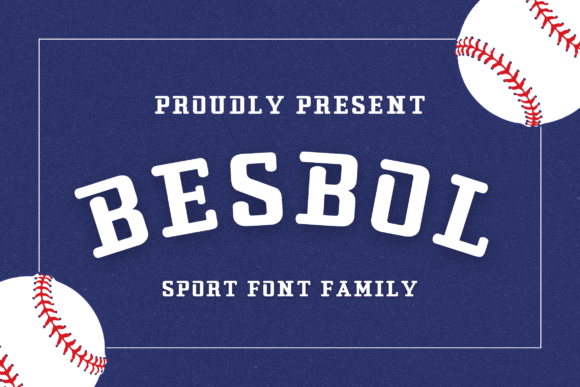
The Besbol Font: A Modern Classic for Your Design Projects
I’ll never forget the time I was working on a branding project for a trendy coffee shop. I had spent hours perfecting the logo design, but something was off. The font I had chosen just wasn’t giving me the vibe I wanted. It was then that I stumbled upon the Besbol font. With its modern and classic letter design, it instantly elevated my design and gave it a fresh, approachable feel. In this article, I’ll share my experience with the Besbol font, its characteristics, and how to make the most of it in your design projects.
What Makes Besbol Font Special?
The Besbol font is characterized by a slab serif font with a modern and classic letter design. The slab serif font style adds a simple yet attractive feel that is approachable, making it a friendly and attractive choice for any project. Whether you’re a designer, crafter, or creative hobbyist, Besbol font is sure to impress.
What I Love About Besbol Font
- ✨ Modern and classic design: Besbol font strikes the perfect balance between modernity and classic appeal.
- ✅ Approachable feel: The slab serif font style gives Besbol a friendly and attractive personality.
- 💡 Versatile: Besbol font can be used for a wide range of design projects, from branding and advertising to crafting and DIY projects.
While Besbol font is an excellent choice for many design projects, there are a few things to keep in mind:
- ⚠️ Limited availability of stylistic alternates: Besbol font has a limited number of stylistic alternates, which may not offer as much flexibility as some designers might like.
- 🤔 May not be suitable for very small text sizes: Like many slab serif fonts, Besbol may not be the best choice for very small text sizes, as the serifs can become blurry or lost.
The Designer Inspiration Behind Besbol Font
The Besbol font was designed with the goal of creating a modern, classic font that would be approachable and friendly. The designer drew inspiration from traditional slab serif fonts, but with a fresh, contemporary twist. The result is a font that is both timeless and trendy, making it perfect for a wide range of design projects.
Q: What is the Besbol font style?
A: The Besbol font is a slab serif font with a modern and classic letter design.
Q: Is Besbol font suitable for body text?
A: Yes, Besbol font can be used for body text, but it may not be the best choice for very small text sizes.
Q: Is Besbol font available in different weights or styles?
A: Besbol font may be available in different weights or styles, but the exact variations will depend on the specific font package or vendor.